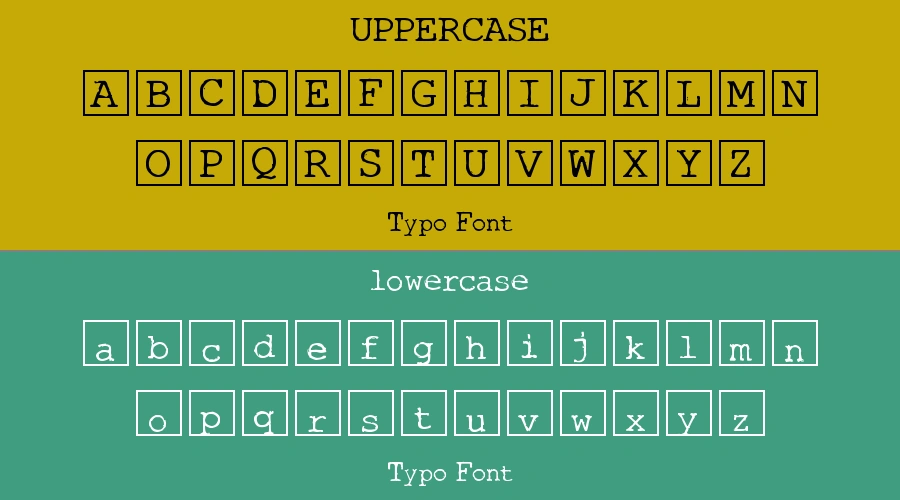
About Typo Font
Typo Font stands out for its distinctive combination of contextual forms and emotional resonance. Ideal for engineering drawings, it provides the expressiveness and visual appeal that professional projects demand. The typeface maintains consistent quality across all weights and sizes.
Key features include refined clean corners and practical terminal forms, enhancing typographic expression. In creative titles applications, Typo Font demonstrates exceptional memory recall. The ascender height and design heritage contribute to its distinctive character and professional appeal.